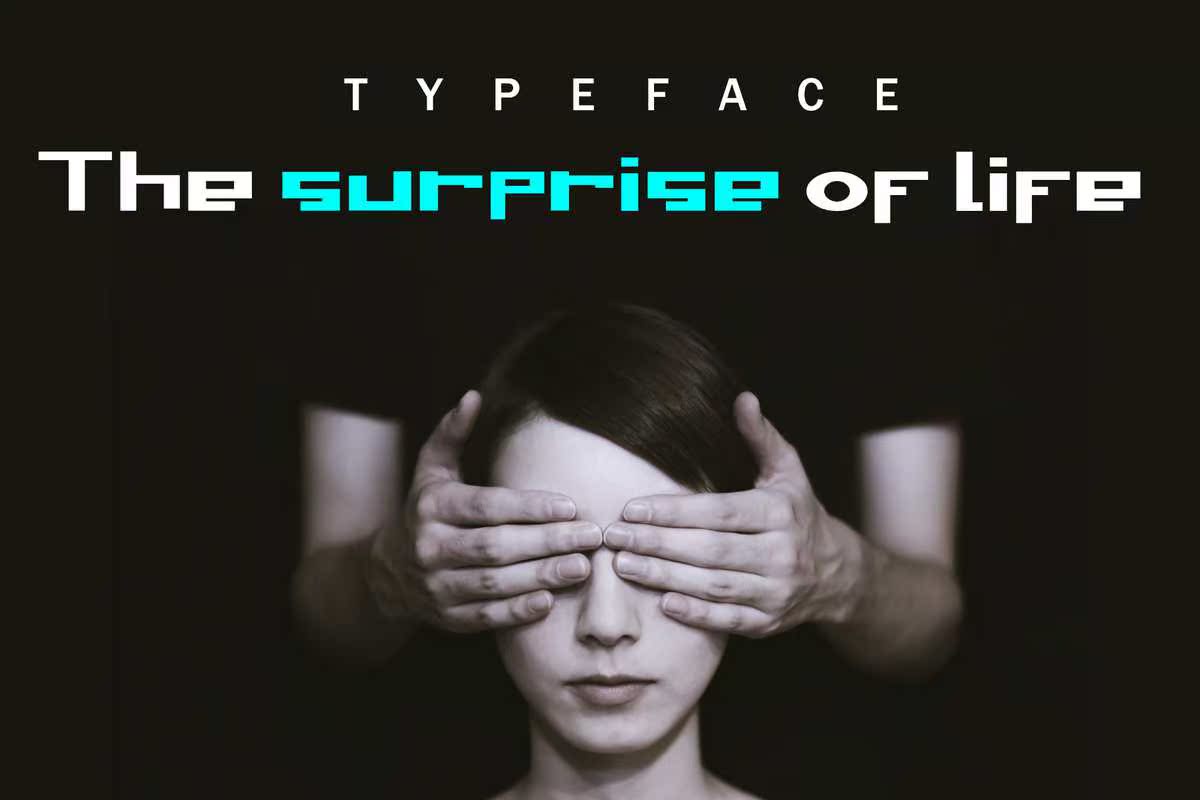
BagFreshTypeFaceFontInUniqueStyleAlphabet.SetofMulticoloredBrightLettersforScriptions and Your Design.VectorillInstruction.IsolatedOn WhiteBackground.BagFreshTypeFaceFontInUniqueStyleAlphabet.SetofMulticoloredBrightLettersforScriptions and Your Design.VectorillInstruction.IsolatedOn WhiteBackground。